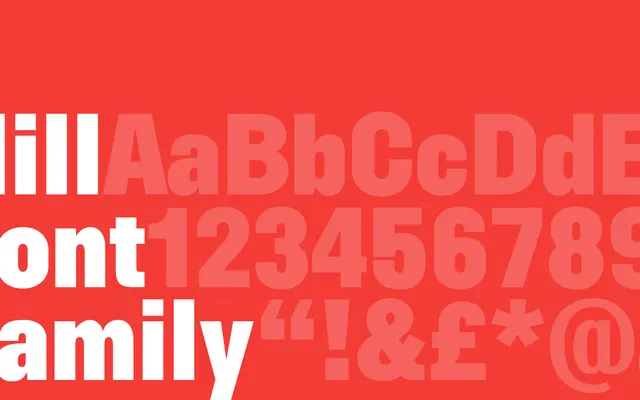
A serif typeface from Playtype, suited to editorial and literary contexts.
Hill is a serif typeface from Copenhagen foundry Playtype, designed for editorial and text use. The sparse promotional copy, quoting an actor's ambivalence toward his craft, suggests a typeface with a quiet, literary character. Limited detail is available on weights and language support from the page.
The page content is too sparse to determine precise subcategory, but Playtype's Hill is a serif typeface; classified as transitional based on typical Playtype design sensibilities and the name's association with editorial serif work.